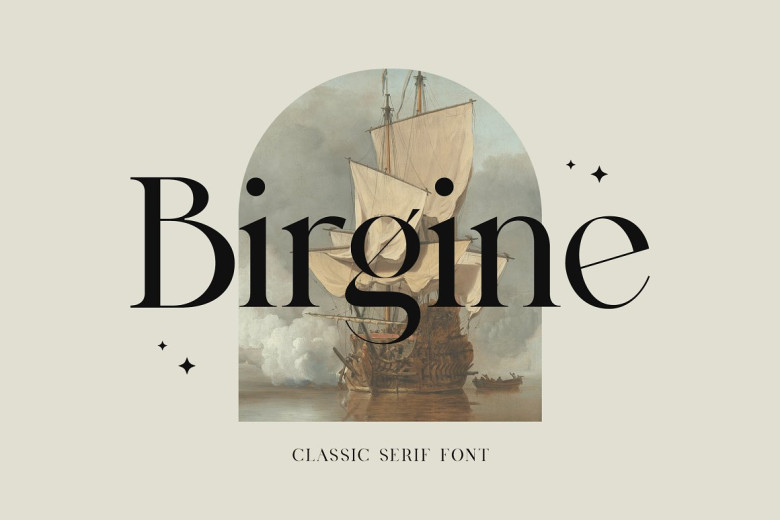
Birgine Font
Birgine Modern Serif font is our newest offering! Featuring its elegant and classy appearance, this font can be used in various projects including magazine covers, book covers, website headers and clothing design. Additionally it is great for branding purposes as well as packaging design as it displays both masculine and feminine qualities in one design solution.
Birgine Modern Serif Font